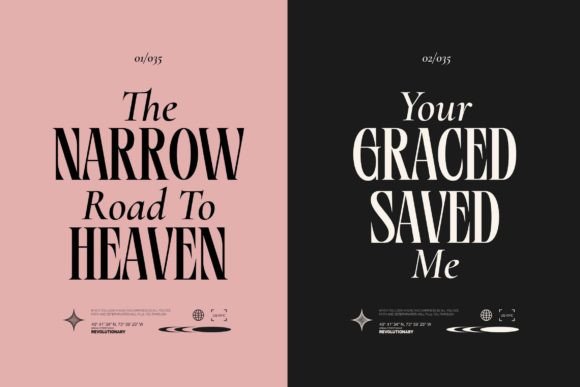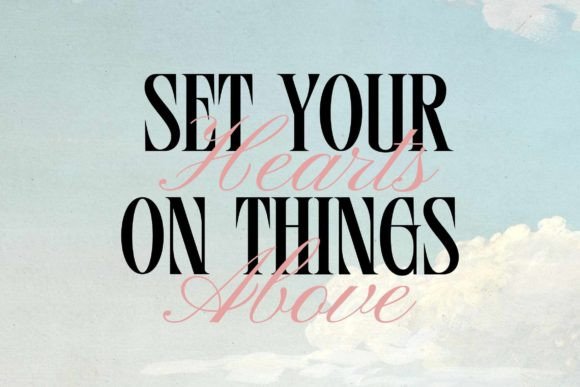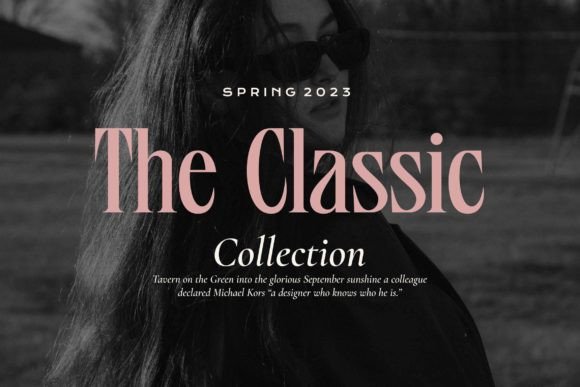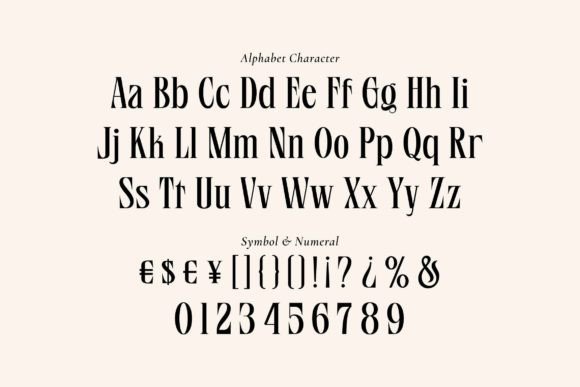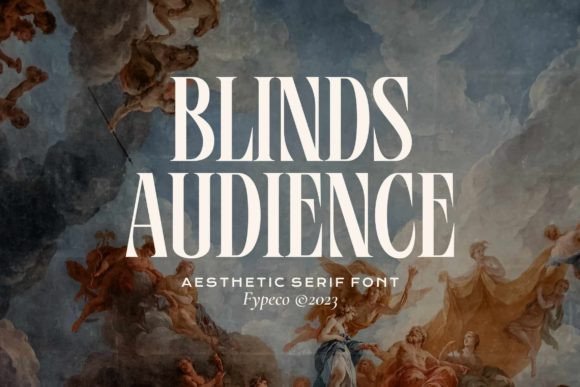
The Blinds Audience Font: A Modern Serif Marvel for Designers
- ✨ Modern aesthetic: The Blinds Audience font boasts a sleek, modern look that’s perfect for designs that require a touch of sophistication.
- ✅ PUA encoded: This font is PUA encoded, making it easy to access all the glyphs and ligatures, which is a game-changer for designers.
- 💯 High-quality design: The font is masterfully designed, with attention to detail that’s evident in every curve and line.
While I absolutely love the Blinds Audience font, there are a few minor quirks to be aware of:
- ⚠️ Some characters may require manual kerning: As with any font, you may need to adjust the kerning of certain characters to get the perfect look.
- 🤔 Limited language support: While the font supports a range of languages, it may not cover every language or script.
The Story Behind Blinds Audience
The Blinds Audience font was designed with the modern designer in mind. Its creator wanted to craft a font that would be both elegant and versatile, suitable for a wide range of design projects. The result is a font that’s both sophisticated and approachable, perfect for designers who want to elevate their work.
| What is the Blinds Audience font best suited for? | The Blinds Audience font is perfect for designs that require a touch of sophistication and elegance, such as branding projects, logos, and marketing materials. |
| Is the Blinds Audience font PUA encoded? | Yes, the Blinds Audience font is PUA encoded, making it easy to access all the glyphs and ligatures. |